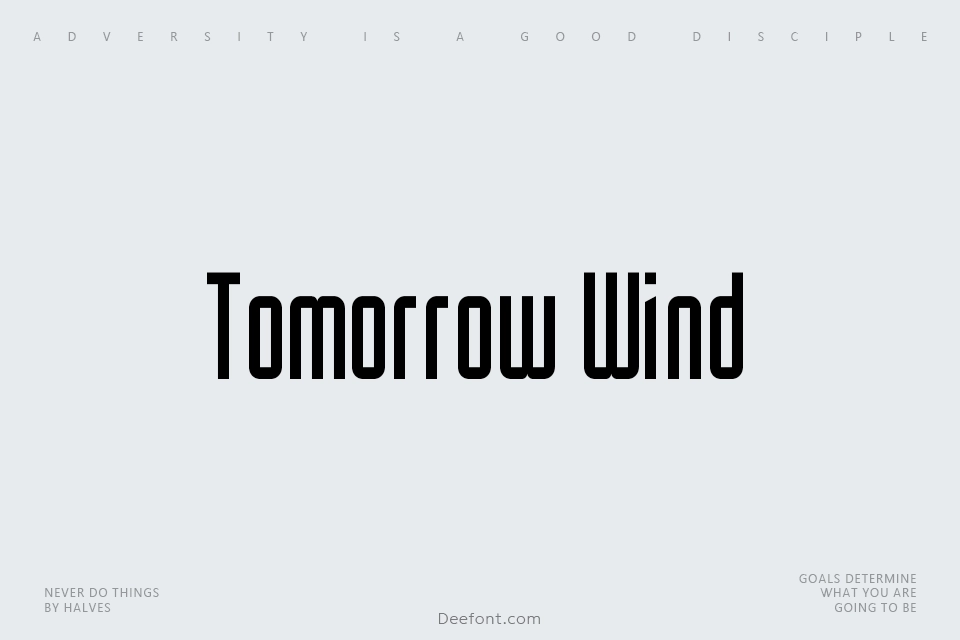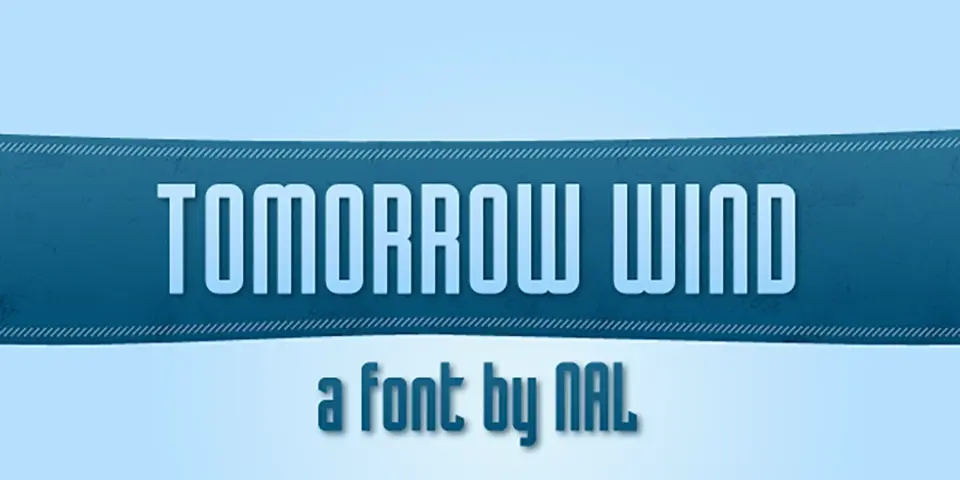
Tomorrow Wind Font
Tomorrow Wind is a striking modern and geometric display font characterized by its condensed proportions and bold vertical emphasis. Designed with a clean, uniform stroke width, this typeface delivers a contemporary and futuristic aesthetic perfect for headlines, posters, and technology-focused branding projects. The font’s consistent geometric construction ensures excellent readability while maintaining a distinctive, eye-catching presence. Its tall, narrow characters create a strong visual impact, making it an ideal choice for designers seeking a modern sans-serif solution with distinctive personality and impact for creative typography applications.